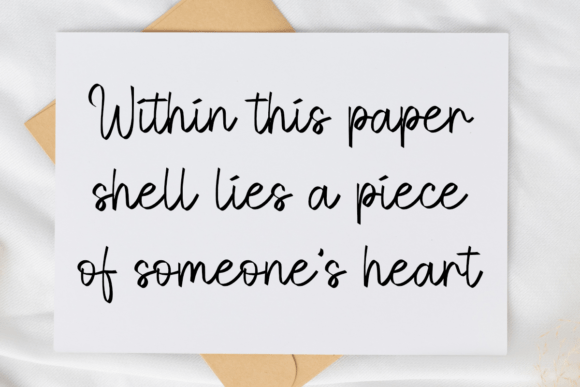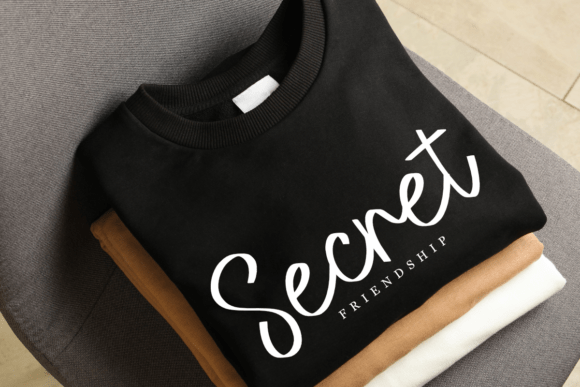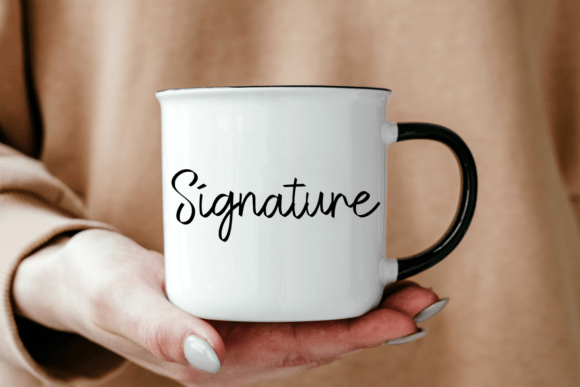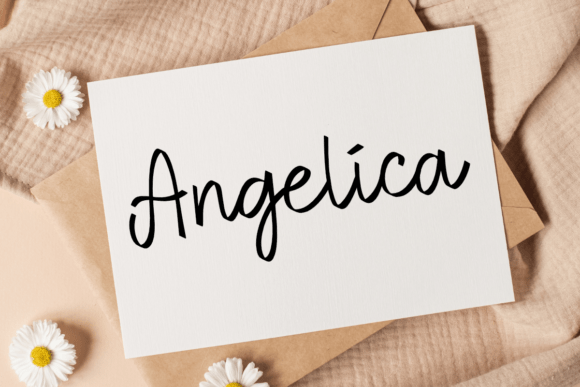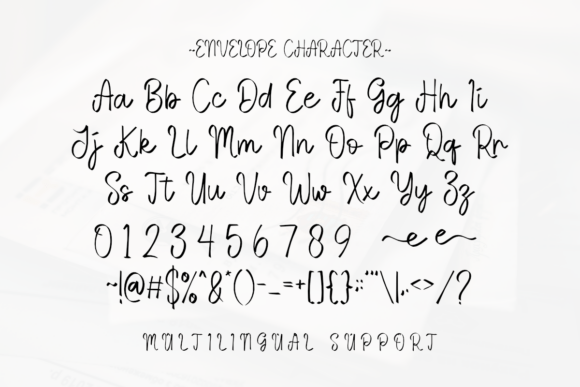
Introducing Envelope: The Elegant Handwritten Script Font
Are you looking for a font that adds a touch of personal elegance to your creative projects? Look no further than Envelope, a beautifully flowing and elegant handwritten script font. With its smooth connections, stylish swashes, and refined aesthetic, Envelope is perfect for designers and crafters who want to create sophisticated and personalized designs.
The Characteristics of Envelope
Envelope is a modern typeface that exudes a sense of personal touch and modern sophistication. Its graceful, cursive letterforms feature:
- Smooth connections that create a natural flow
- Stylish swashes that add a touch of elegance
- A refined aesthetic that is both modern and timeless
These characteristics make Envelope incredibly versatile and perfect for a wide range of creative projects.
Uses for Envelope
Envelope is perfect for adding a touch of handwritten charm to:
- Elegant wedding invitations
- Sophisticated branding materials
- Personalized stationery
- Heartfelt greeting cards
- Stylish social media graphics
- Beautiful quotes
- Eye-catching logos
- Exquisite designs of all kinds
Whether you’re a designer or crafter, Envelope is the perfect font for creating personalized and elegant designs.
Perfect for Crafters and Designers
Envelope is exceptionally well-suited for products targeting end-users who appreciate a personal and elegant touch. This includes:
- Cricut users who create personalized gifts
- Sublimation enthusiasts who create stylish merchandise like mugs and apparel
- Sticker and planner element creators
With Envelope, you can create beautiful and personalized designs that will make your products stand out.
Tips for Using Envelope
Here are a few tips for using Envelope in your designs:
- Use Envelope for headlines and titles to add a touch of elegance
- Pair Envelope with a simple font for body text to create contrast
- Experiment with different swash styles to add personality to your designs
- Use Envelope for branding materials to create a cohesive look
With these tips, you can get the most out of Envelope and create stunning designs.
Envelope is a beautifully flowing and elegant handwritten script font that is perfect for designers and crafters who want to add a touch of personal elegance to their creative projects. With its smooth connections, stylish swashes, and refined aesthetic, Envelope is incredibly versatile and perfect for a wide range of designs. Whether you’re creating elegant wedding invitations, sophisticated branding materials, or personalized stationery, Envelope is the perfect font for you.